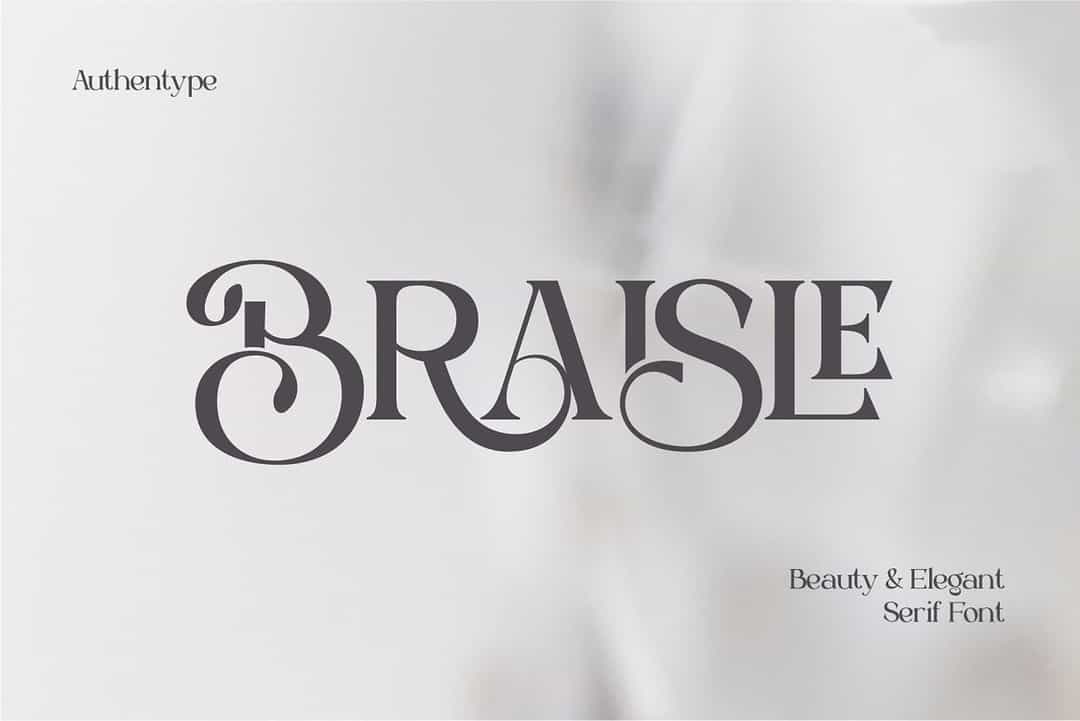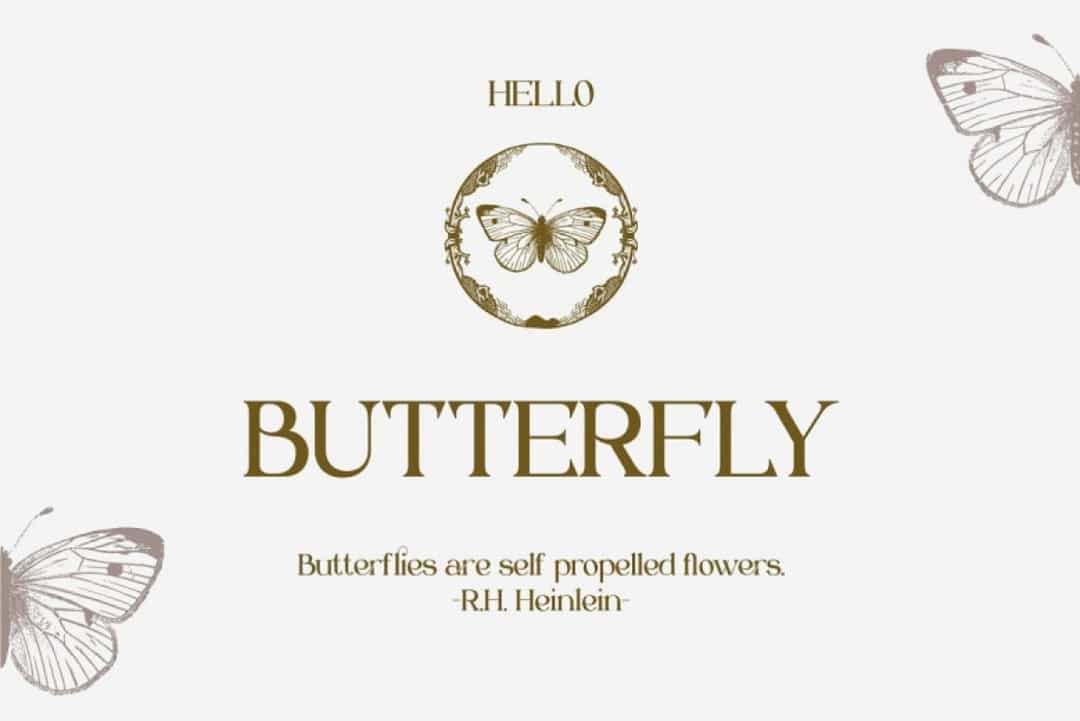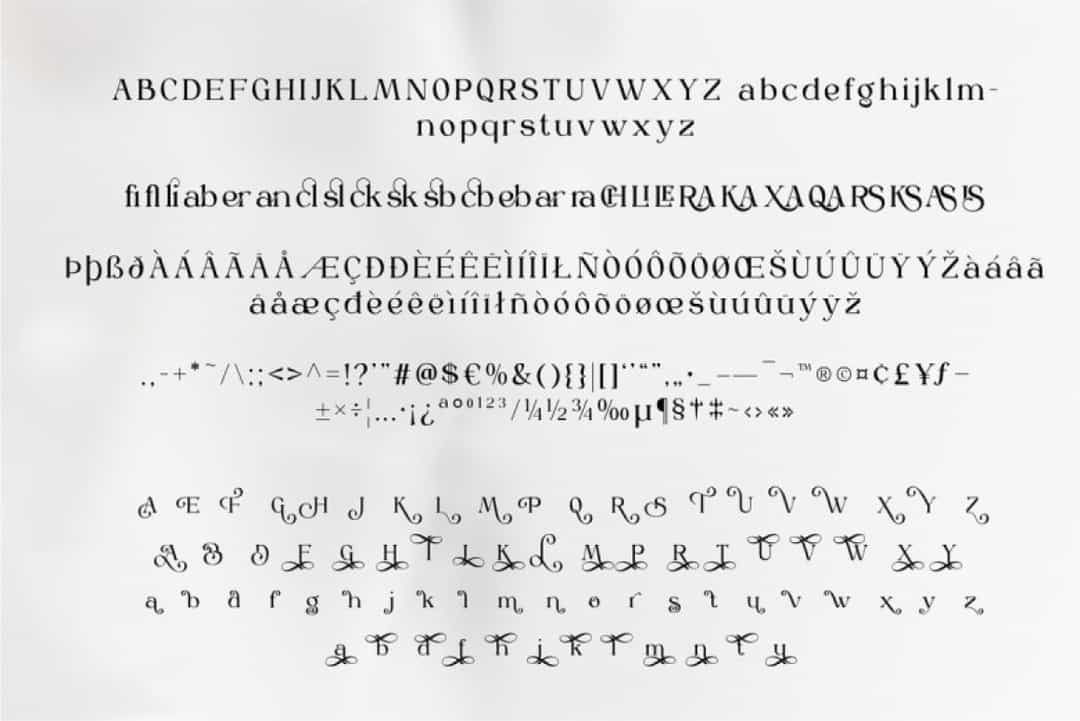
Braisle elegance and beauty font is designed to portray elegance with its beautiful curves, highlighted with attractive ligature designs that enhance its appearance even further.